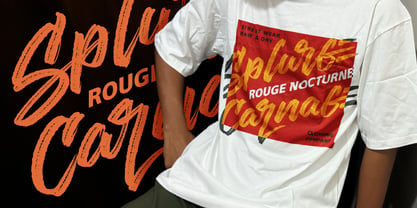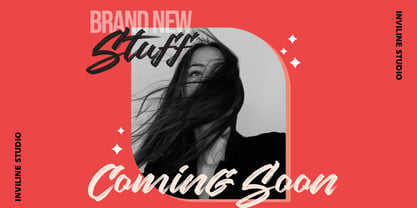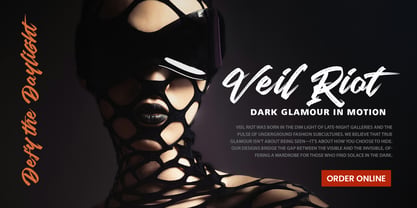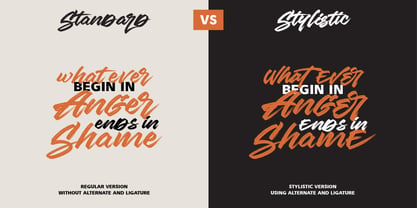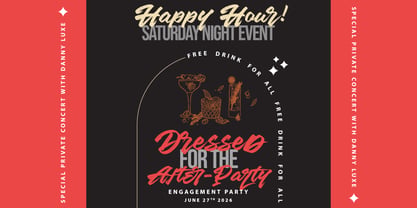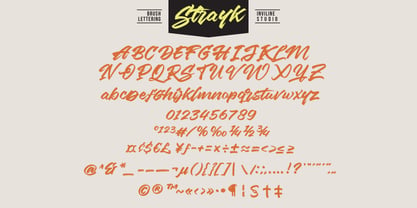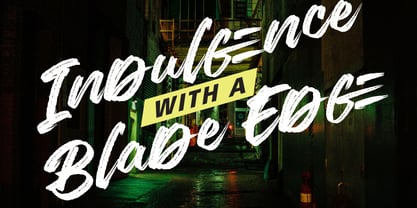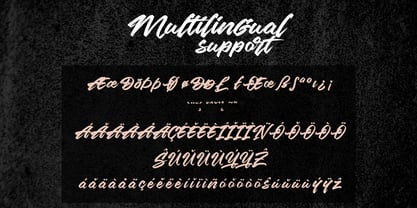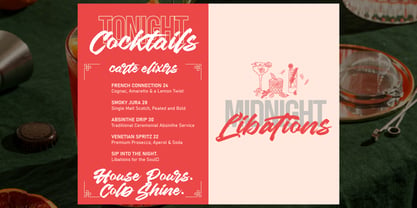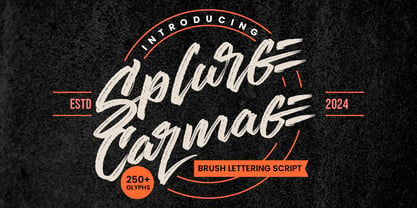
Splurge Carmage
by Inviline
The Splurge Carmage Font Family was designed by Virgiawan Listanto and published by Inviline. Splurge Carmage contains 1 styles. More about this family
Splurge Carmage is a raw, dry brush lettering script designed by Inviline Studio. It embodies "Dark Glamour in Motion," offering a highly textured aesthetic that is perfect for underground fashion subcultures and modern streetwear brands.
Where conventional scripts aim for elegance, Splurge Carmage offers "Indulgence with a Blade Edge". Its dry brush strokes provide a gritty, rebellious energy that commands attention. With over 250 glyphs, including a comprehensive set of stylistic alternates and ligatures, designers can avoid repetitive characters and create typography that looks authentically hand-painted.
It is the ideal typographic choice for bold apparel graphics, late-night cocktail menus, and high-impact concert posters. Splurge Carmage includes extensive multilingual support to accommodate global campaigns.